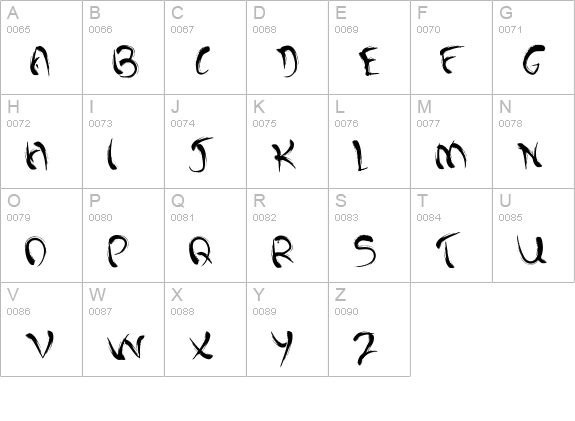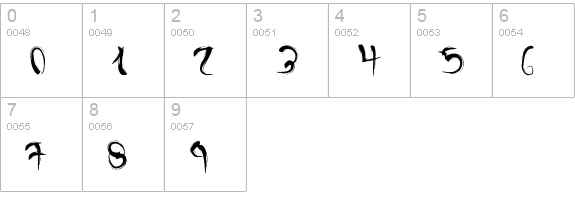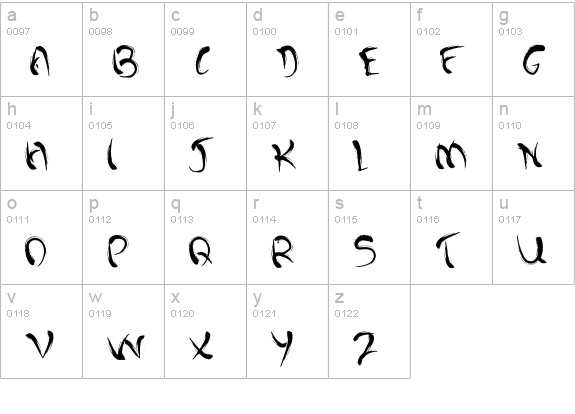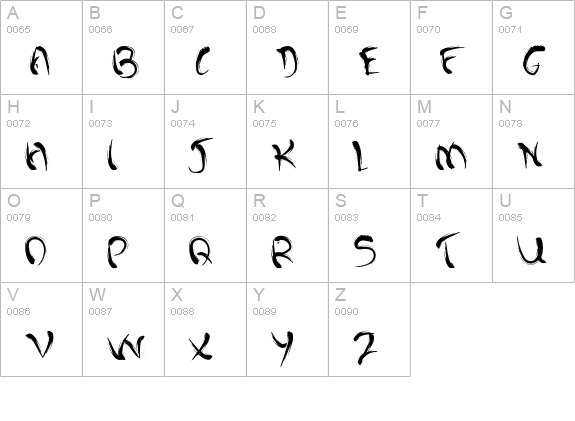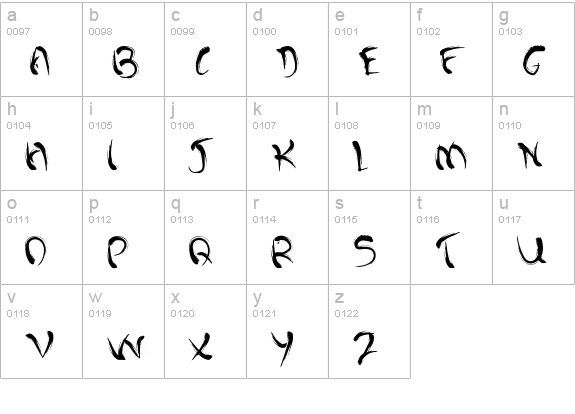
Introducing Dark Past font, a mesmerizing typeface that captures the essence of mystery and intrigue. This unique font embodies a sense of darkness and sophistication, making it the perfect choice for projects that require an edgy and enigmatic touch. Dark Past font features intricate letterforms with sharp angles and elegant curves, creating a harmonious balance between boldness and refinement. Its striking design is sure to captivate the viewer's attention and add a touch of sophistication to any creative endeavor. With its wide range of characters, Dark Past font offers versatility and flexibility for all your design needs. Whether you're working on a logo, branding materials, or a captivating headline, this font will effortlessly elevate your project to new heights. The best part? Dark Past font is absolutely free! Yes, you read that right. This stunning typeface is freely available to download at FontsMarket.com. We believe in the power of creativity and accessibility, which is why we're thrilled to offer this font at no cost. So why wait? Dive into the captivating world of Dark Past font and unleash your creativity. Download it now from FontsMarket.com and start creating designs that leave a lasting impression. Embrace the darkness and let Dark Past font become your secret weapon for design success.